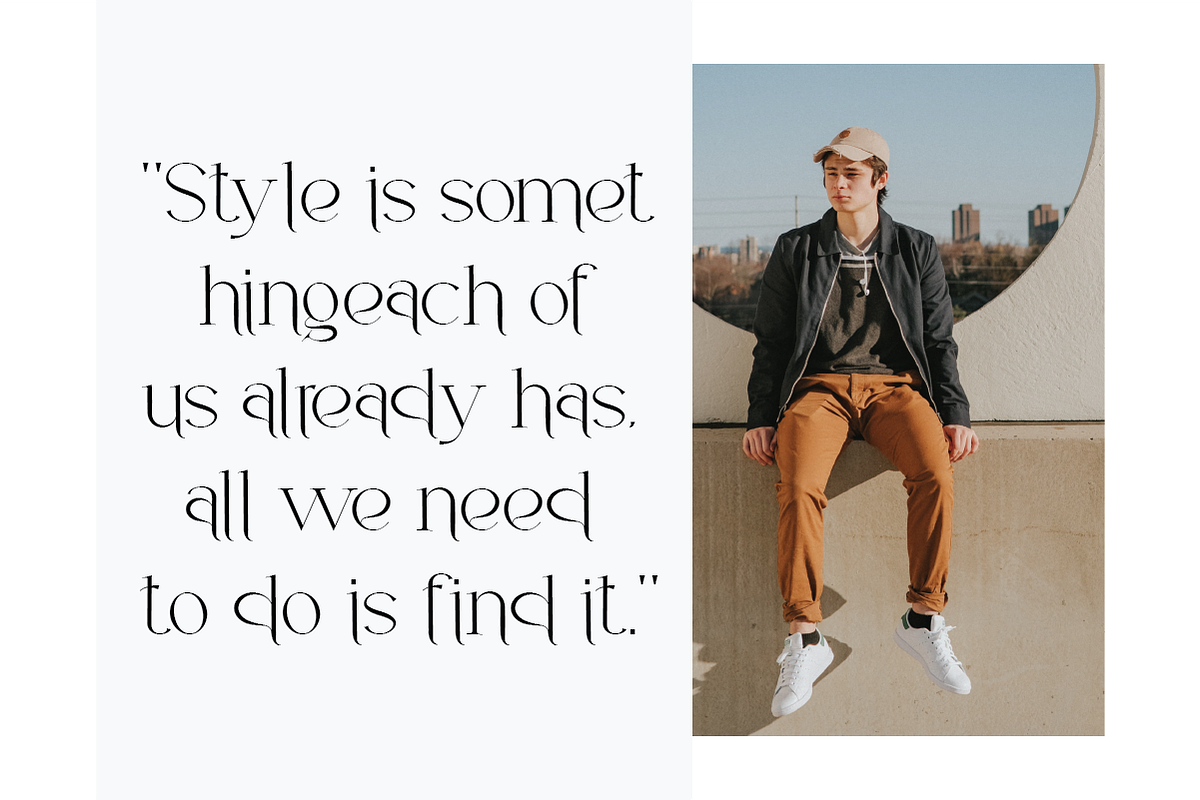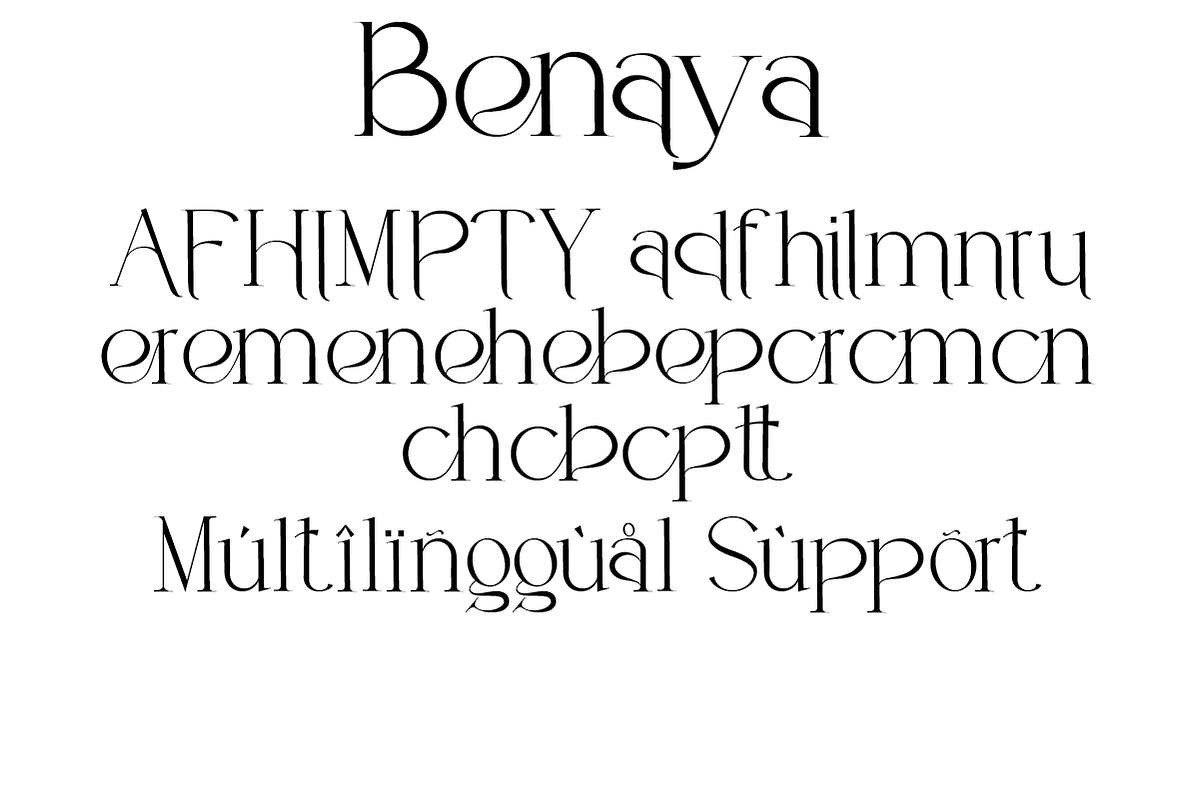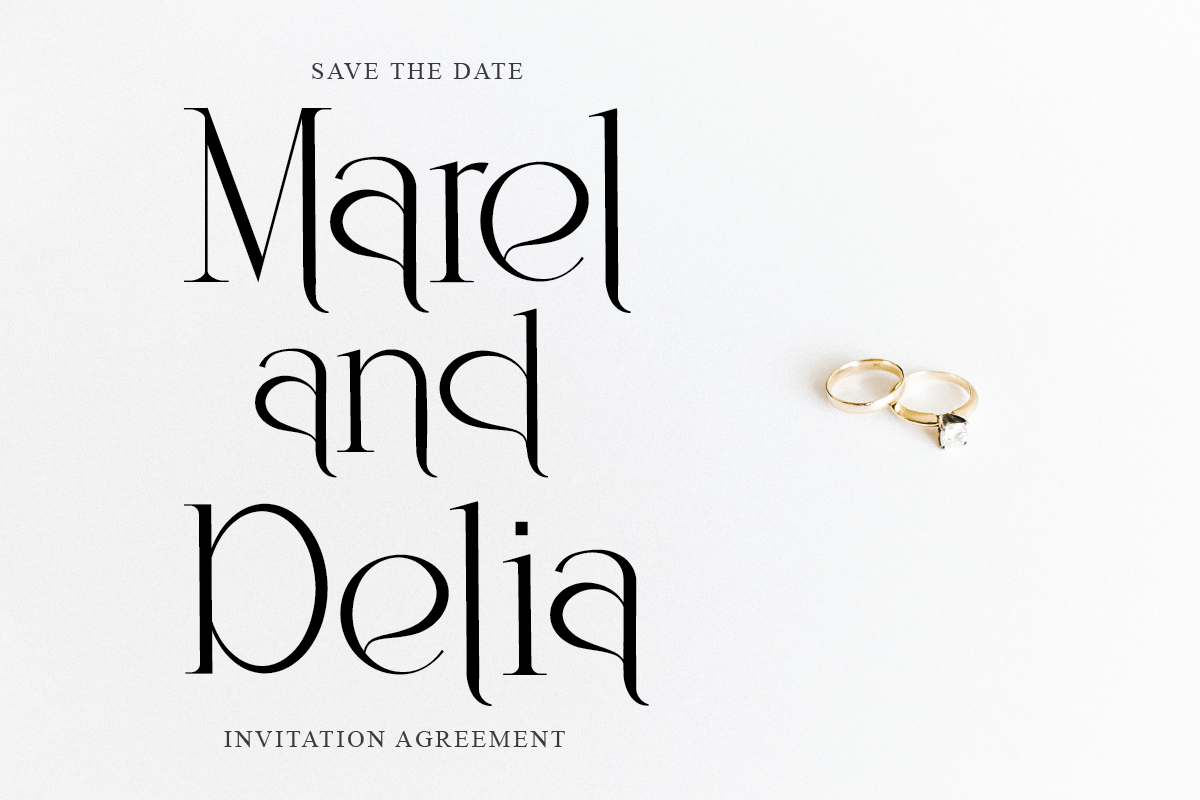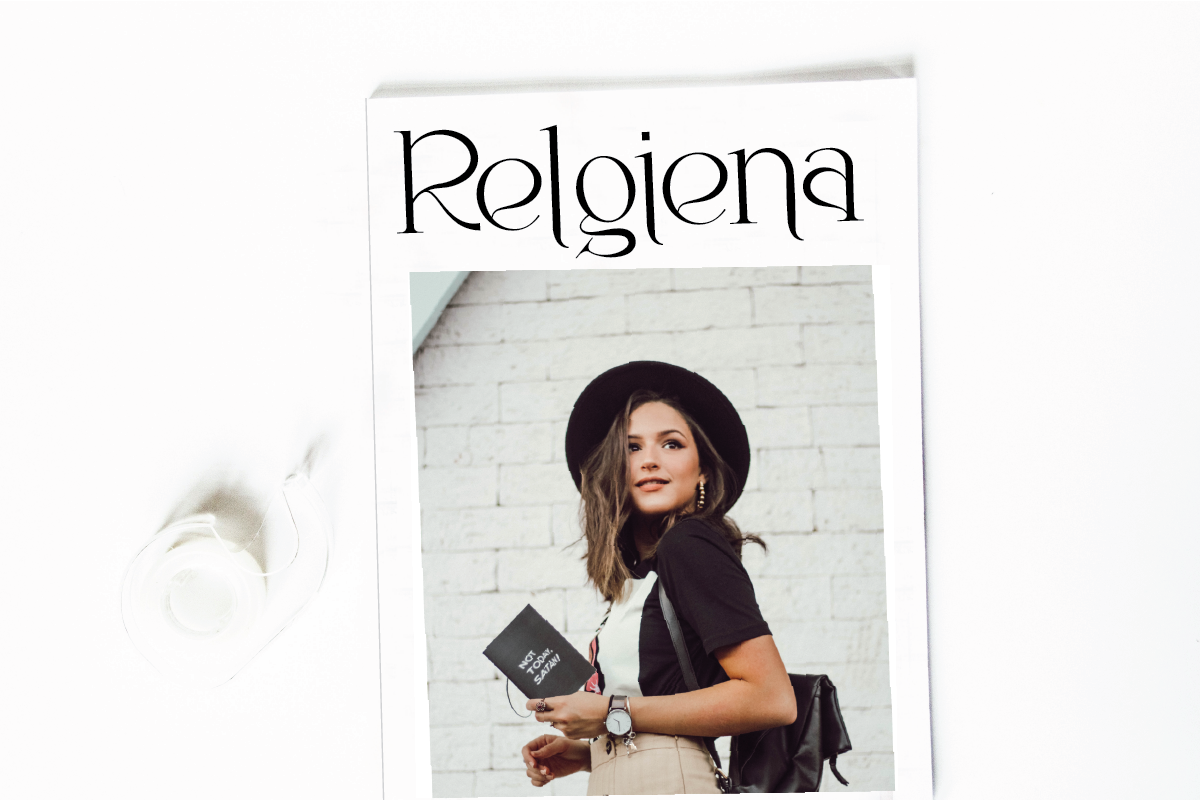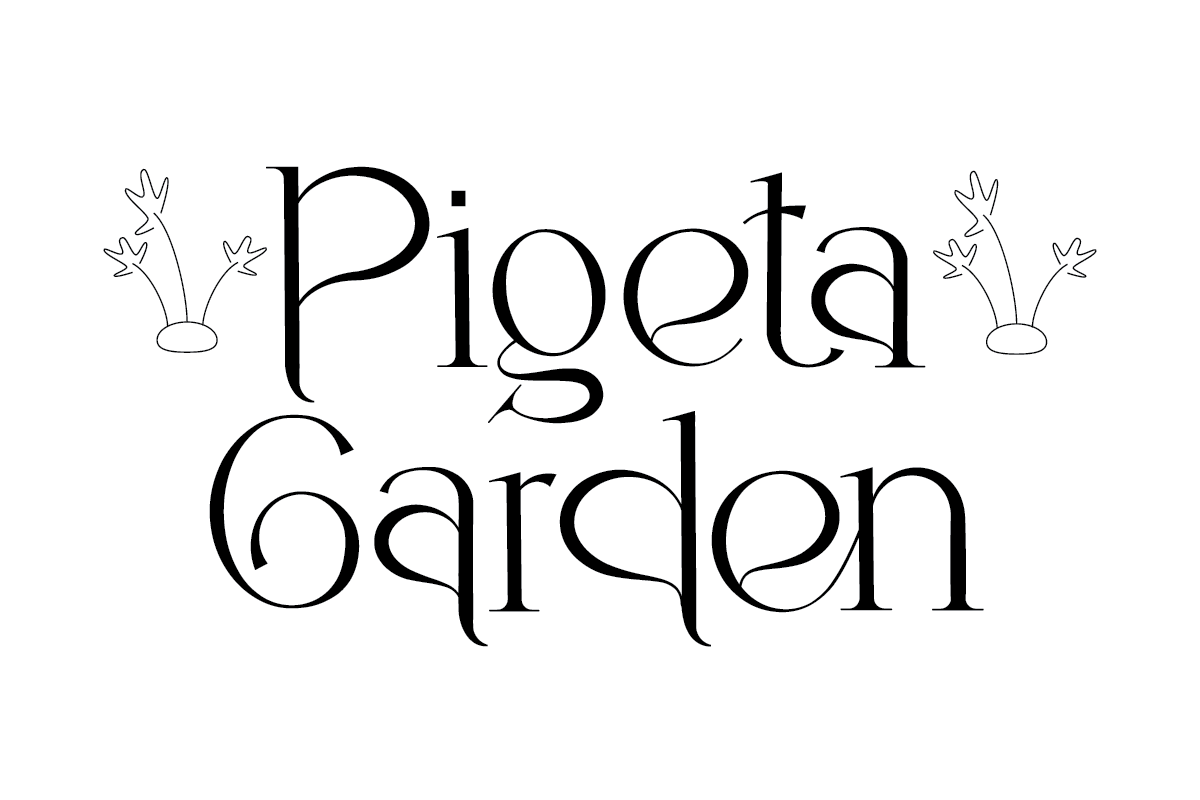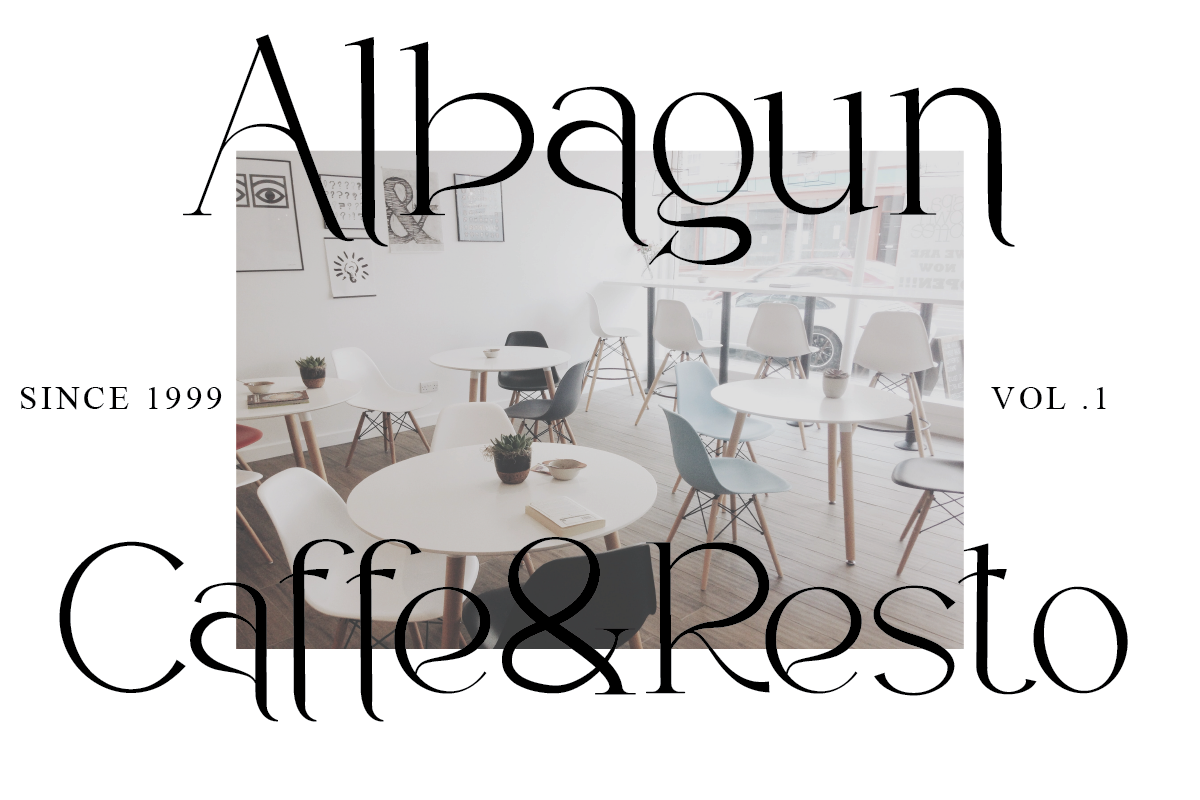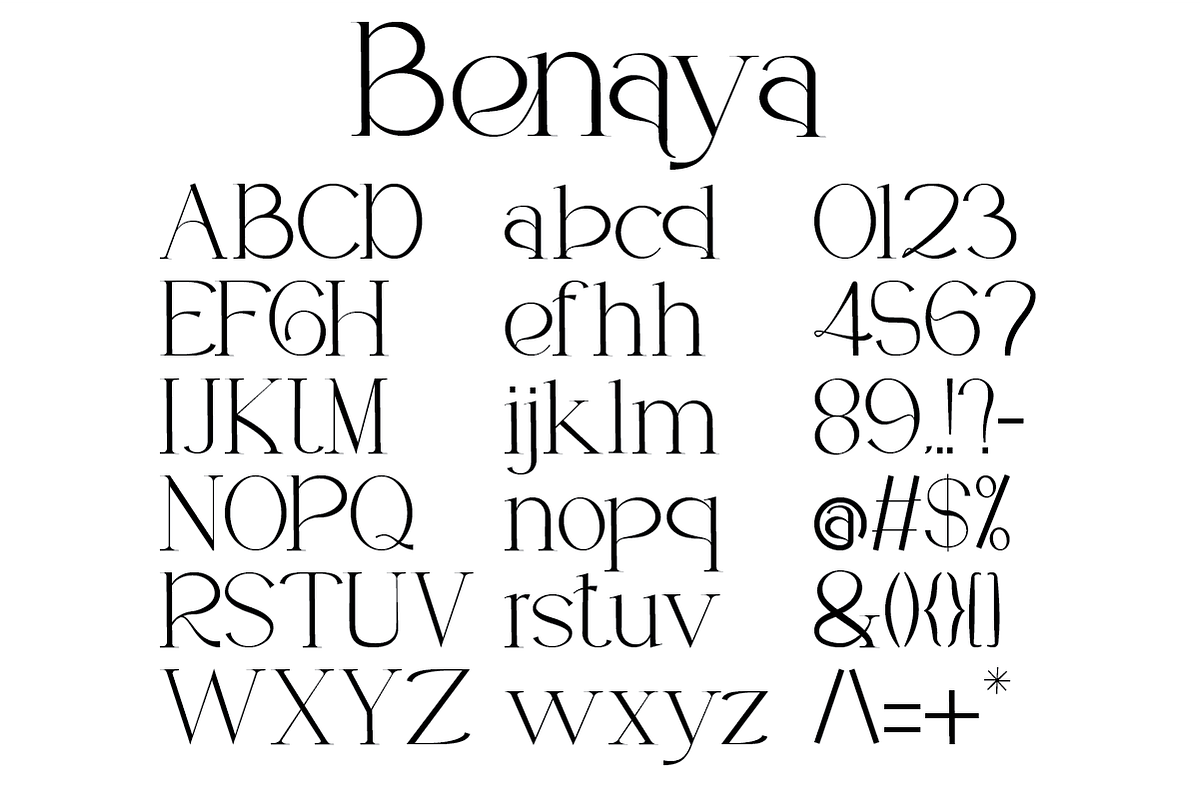
Benaya
Benaya is a Modern displaya serif font. Use it to make your ideas even more realistic and create spectacular designs! This font is PUA encoded which means you can access all of the glyphs and swashes with ease!